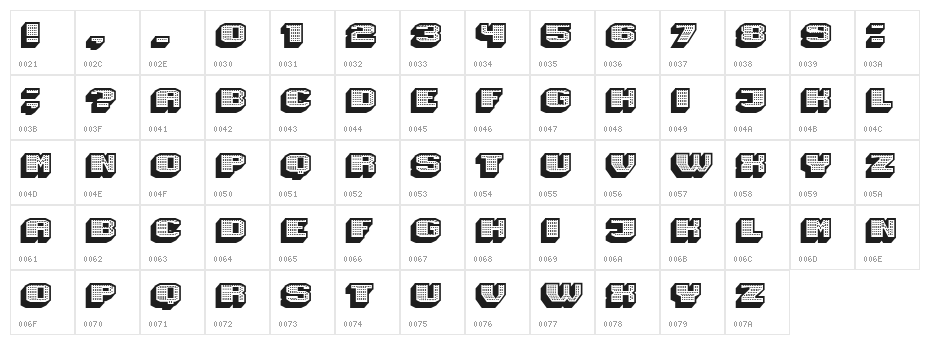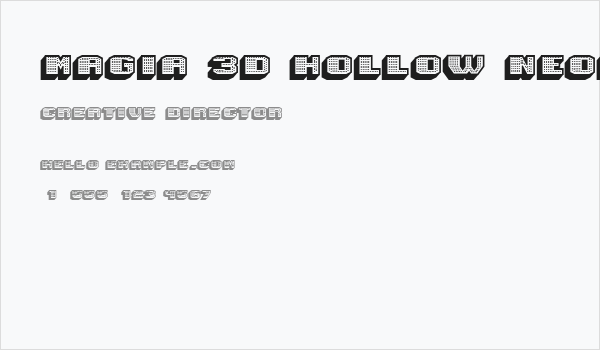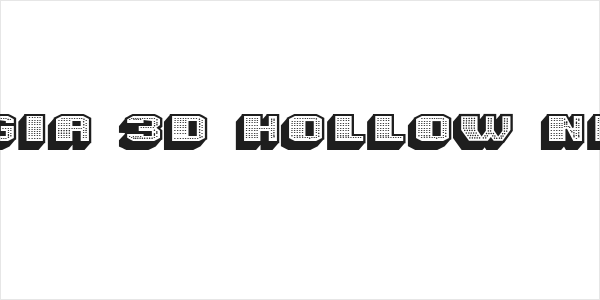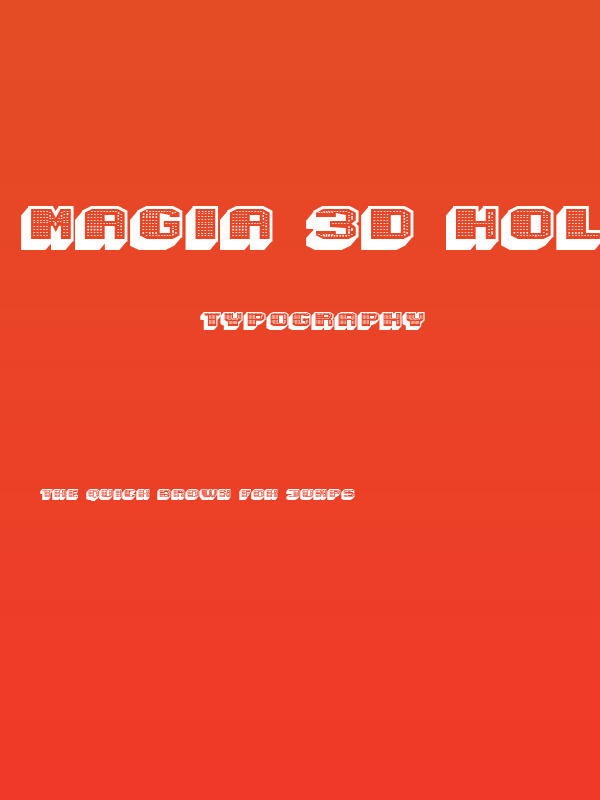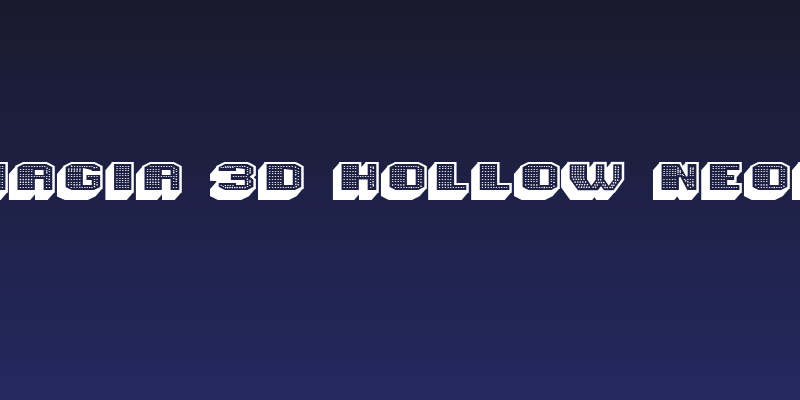
Magia 3D Hollow-Neon Font
Magia 3D Hollow-Neon Description
This font features a bold, three-dimensional design with a hollow interior, giving it a striking and modern appearance. The letters are capitalized and have a shadow effect that adds depth. The interior of each character is dotted, enhancing its visual appeal and making it stand out. This style is reminiscent of neon signage, providing a retro yet futuristic vibe. The numbers and special characters follow the same design principles, ensuring consistency across all elements. The font's unique style makes it ideal for eye-catching displays.
| Proposed Projects | Ideal for retro-themed posters, signage, branding, and any project requiring a standout, futuristic look. |